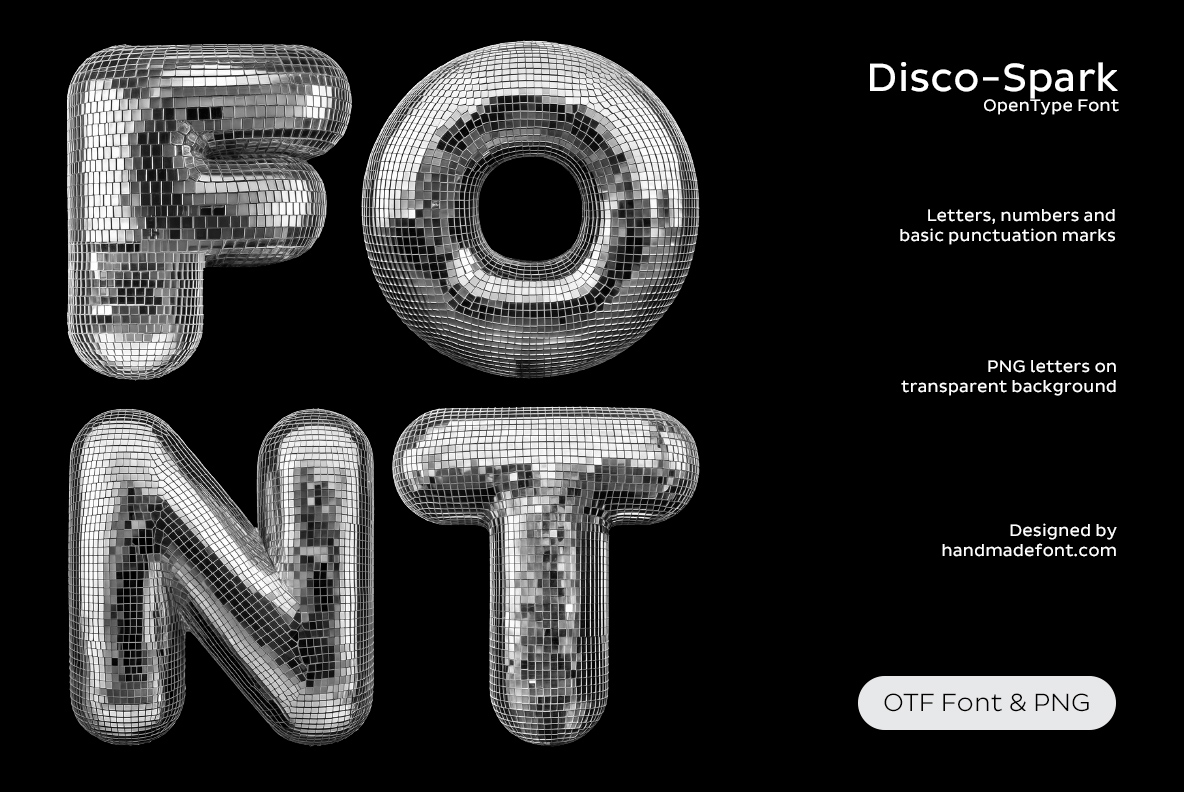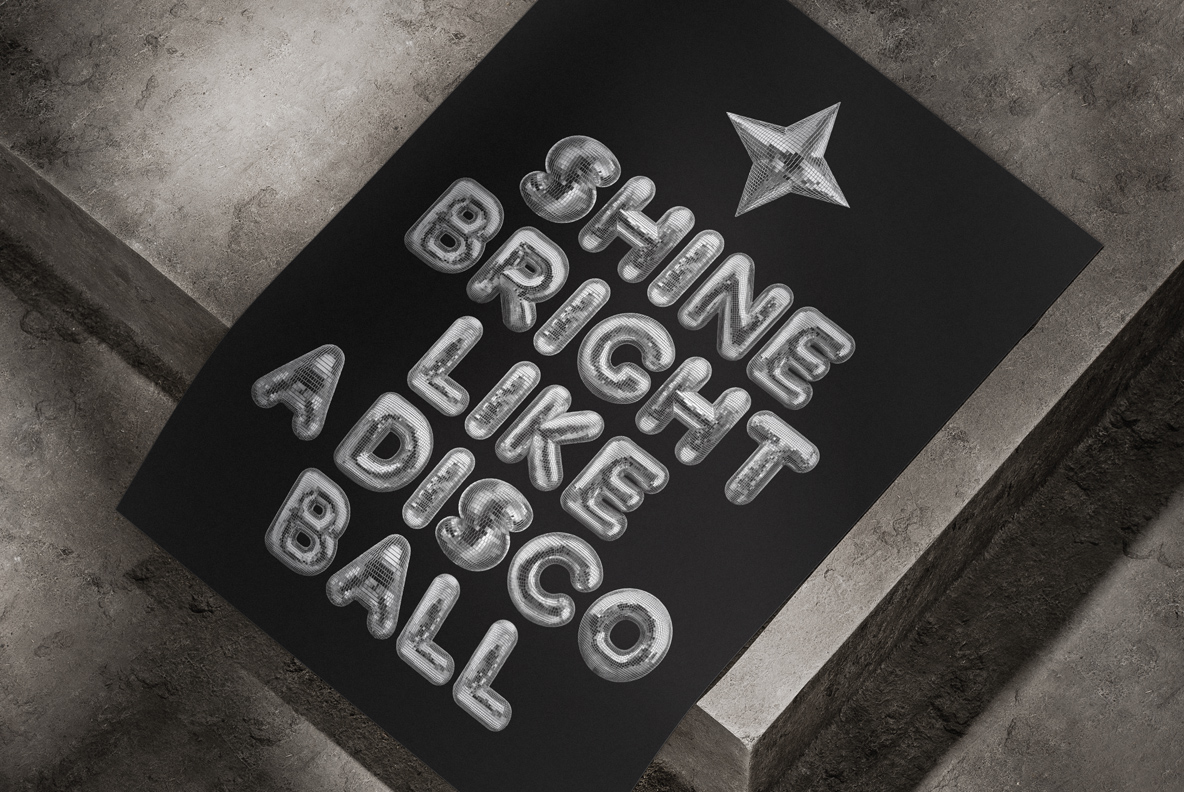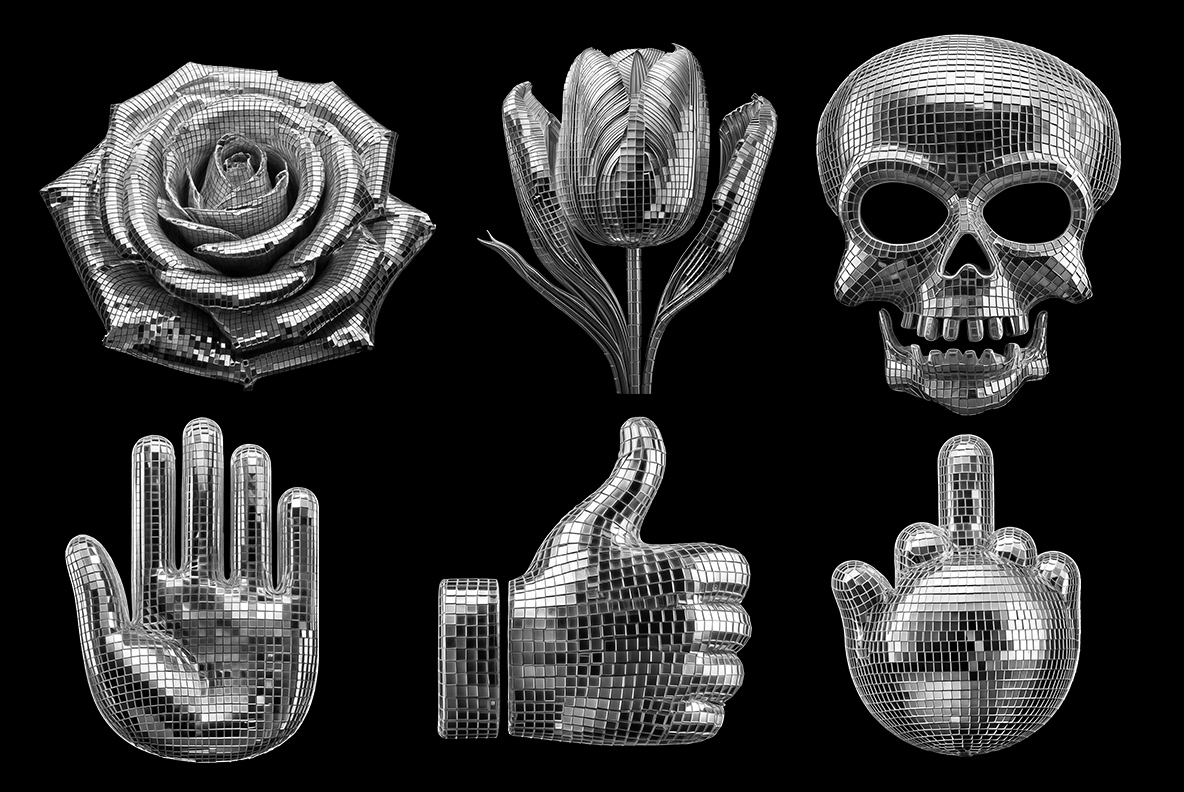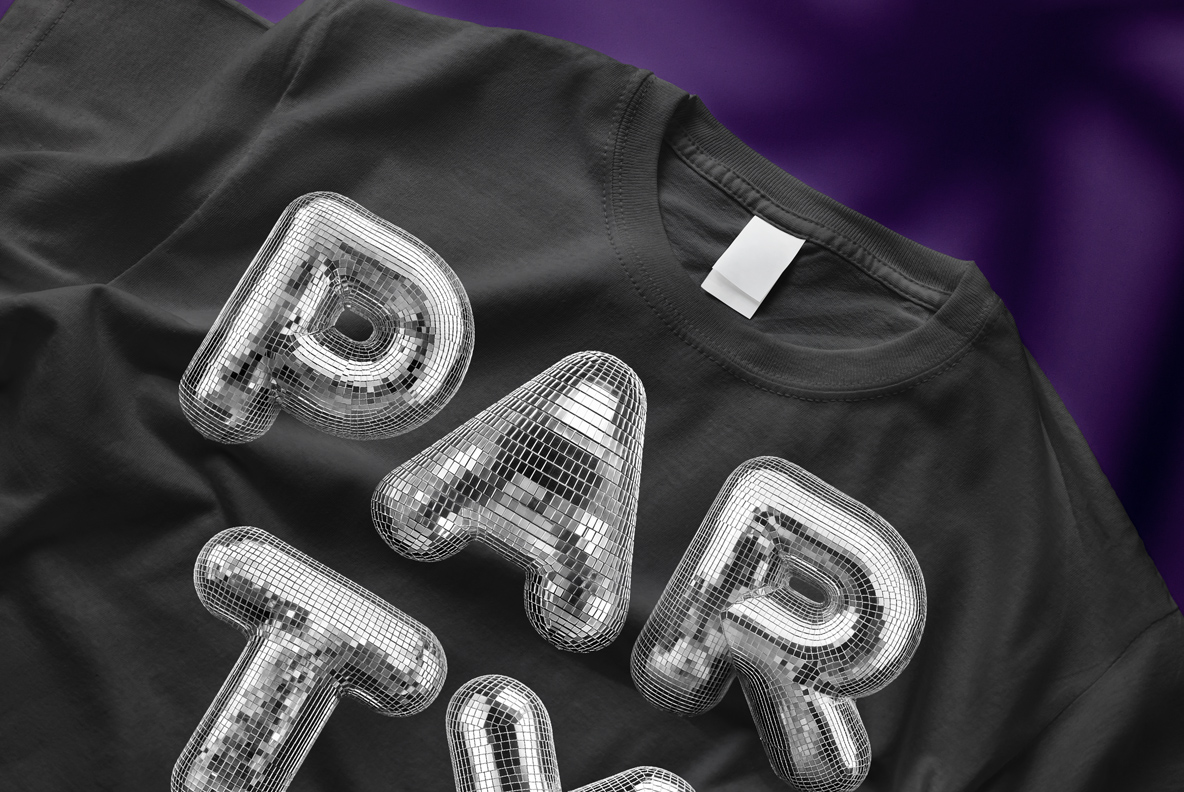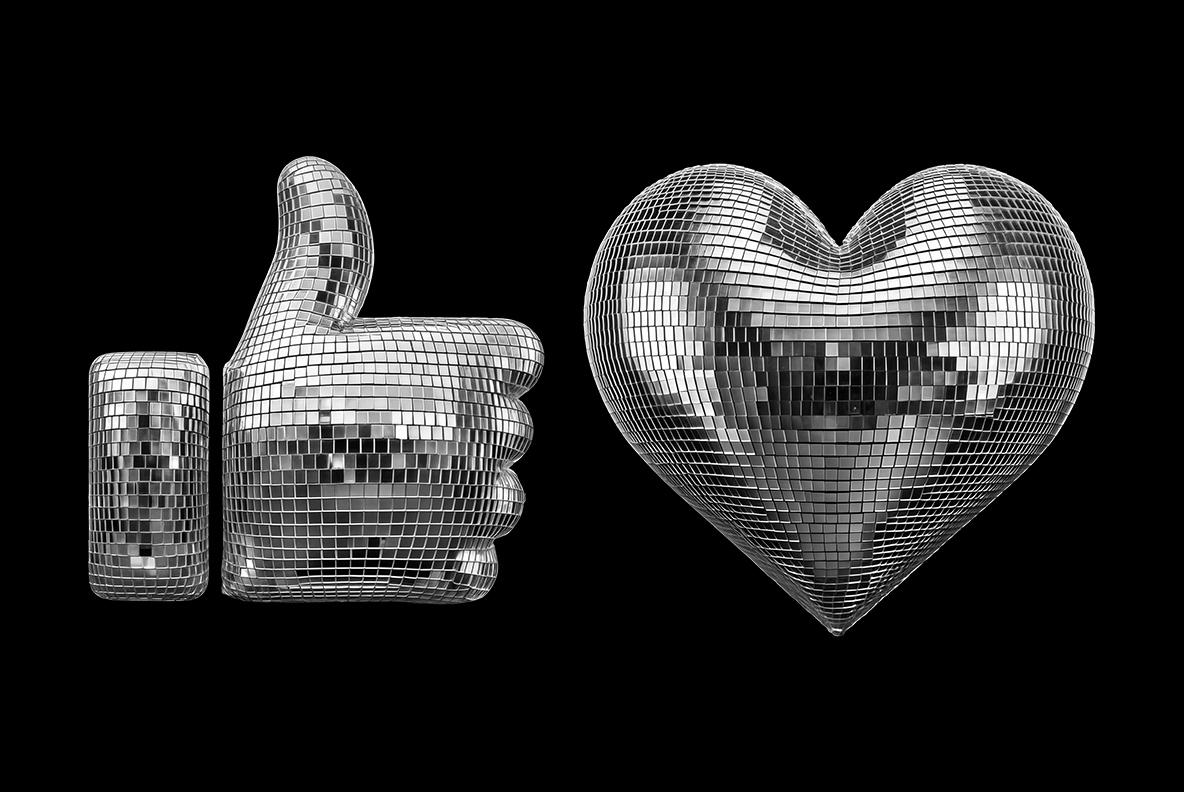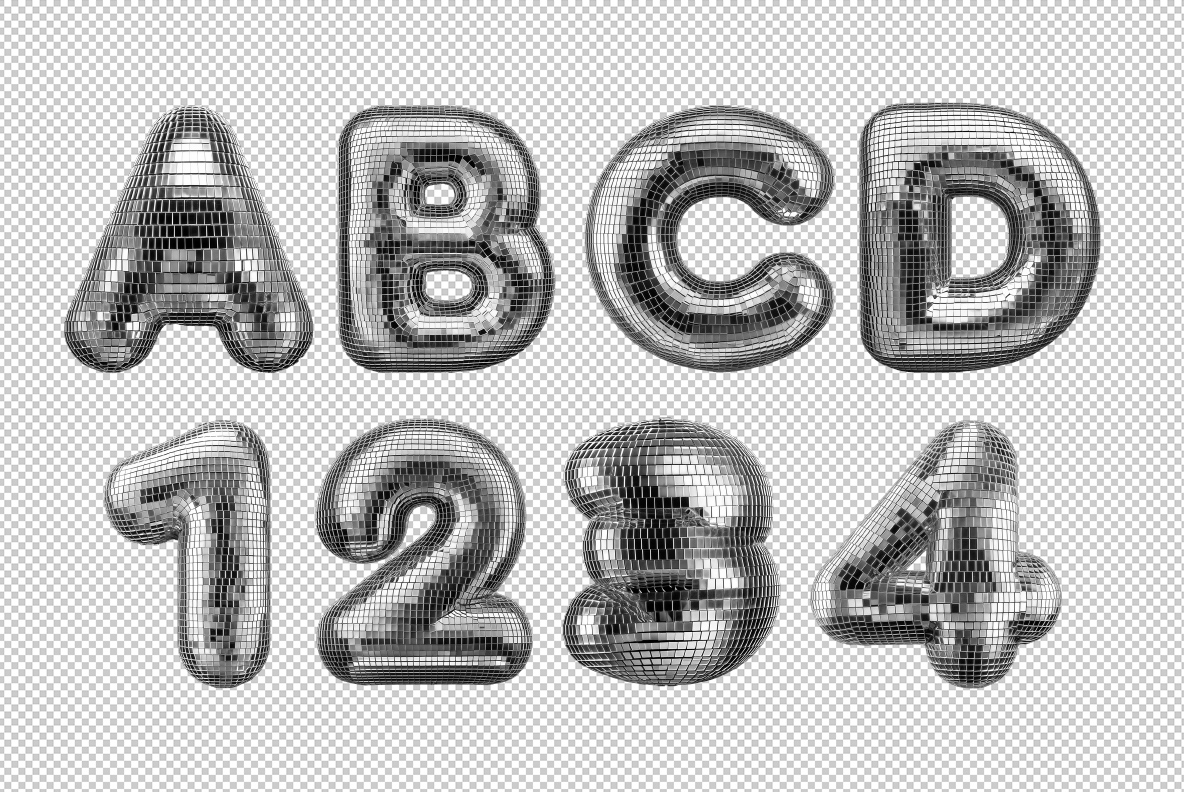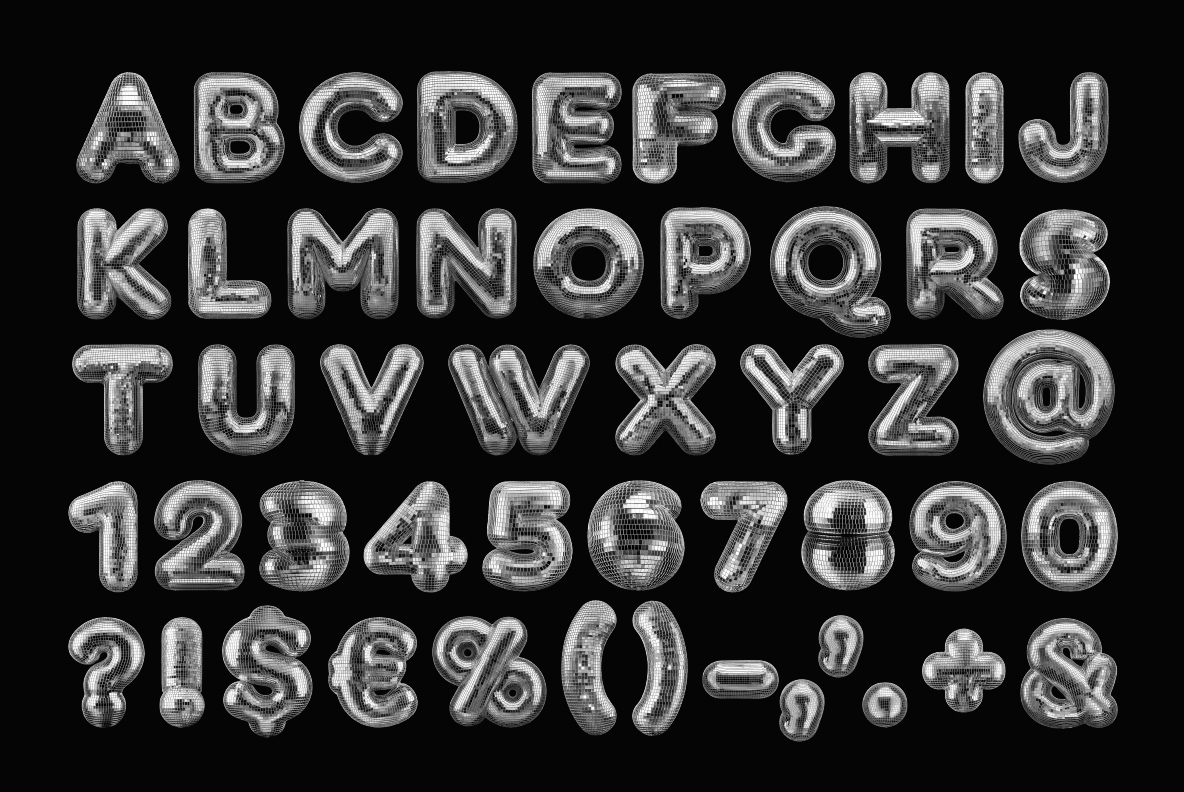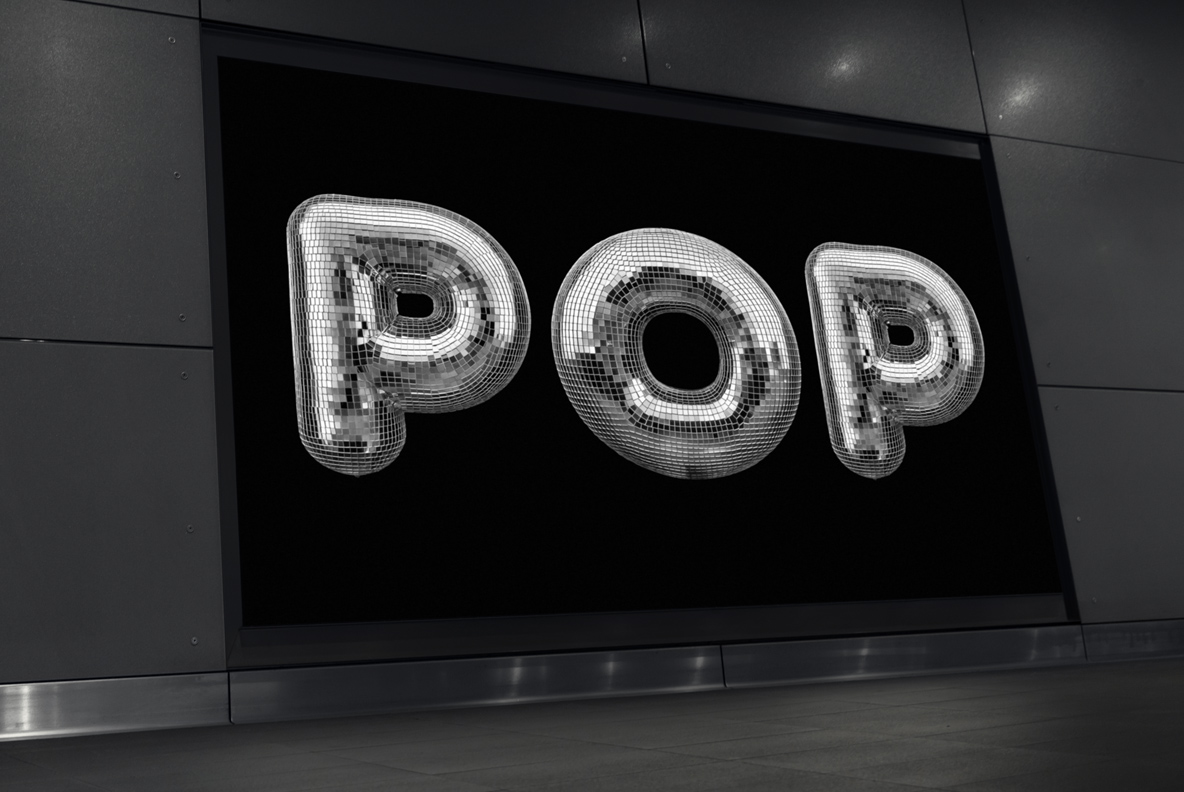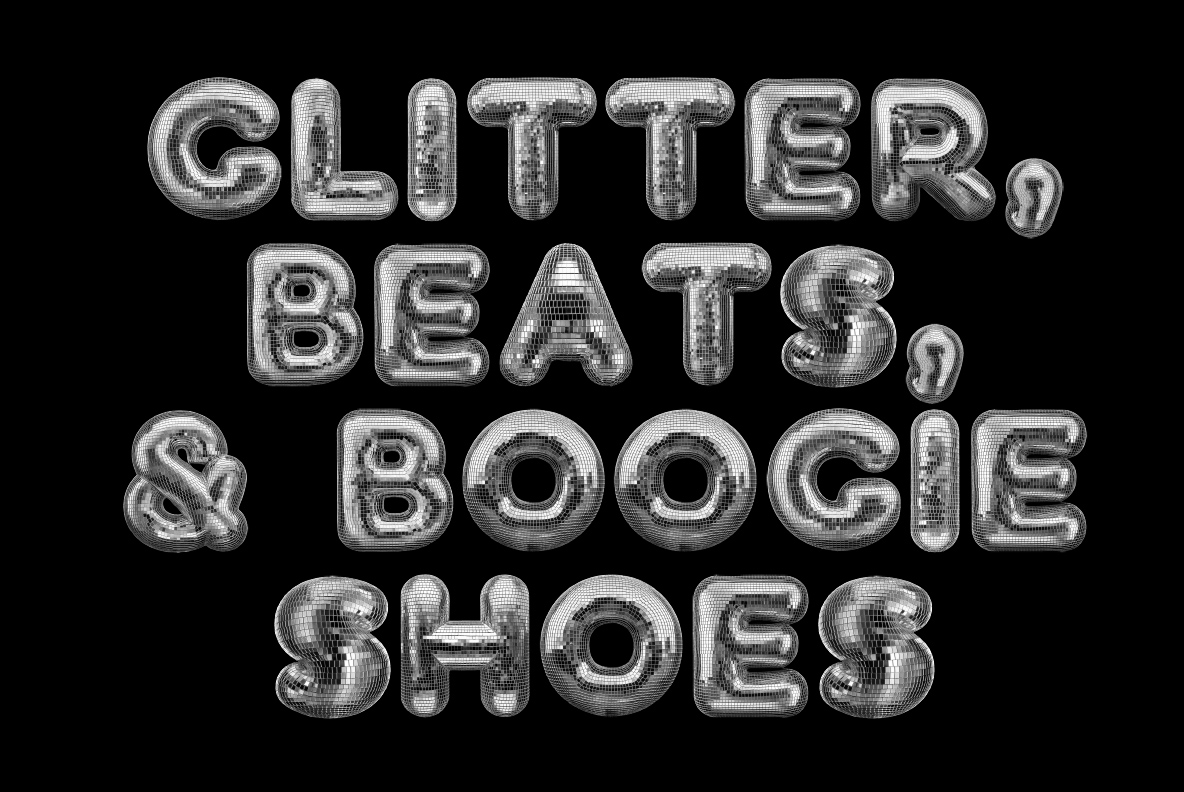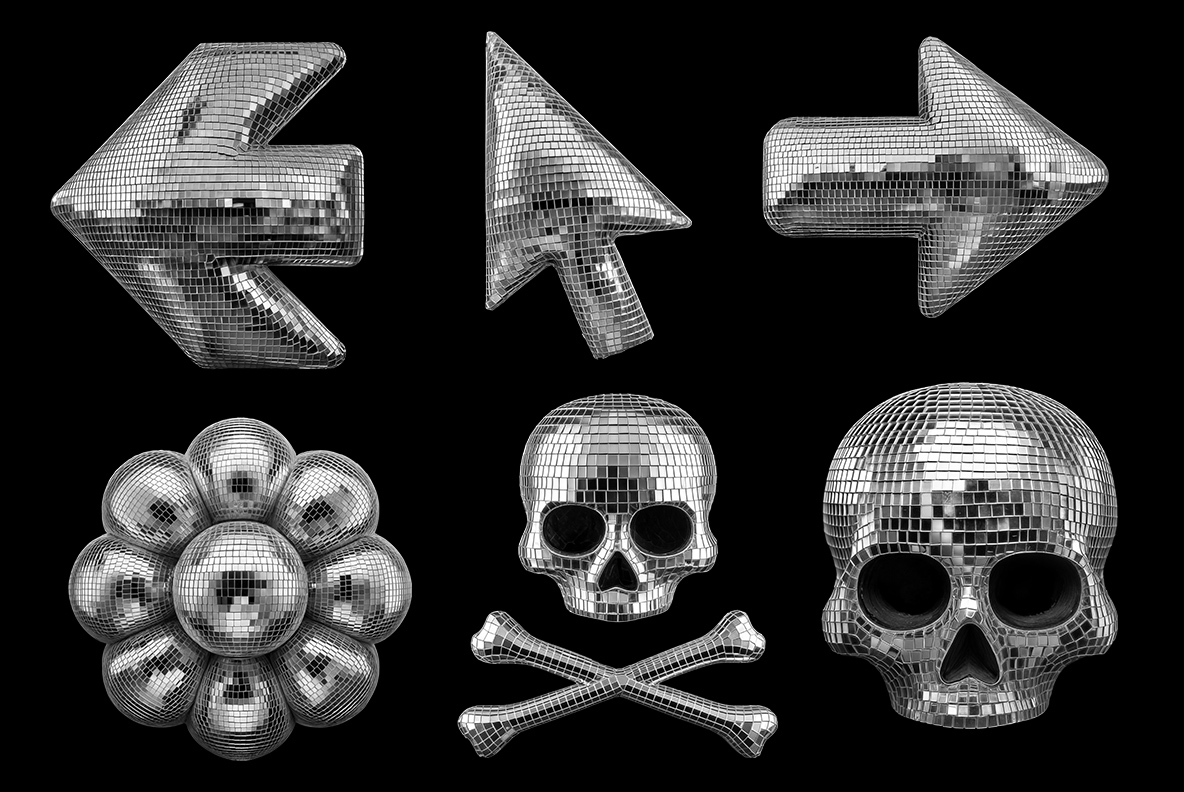
Disco-Spark Font. Mirror-Tiled Balloon Letters
Inflated foil capitals wrapped in thousands of tiny mirror-ball facets, shot in pure silver on black. The Disco-Spark Font keeps its shapes fat and readable while the surface throws light everywhere. Roses, tulips, skulls, hands, eyes, stars and arrows arrive in the same tiled chrome, so a flyer can stay silver from headline to corner.
A Mirror Ball That Learned the Alphabet
Somebody inflated a mirror ball until it turned into letters. Every capital puffs out like foil, and the whole surface then breaks into thousands of tiny silver facets. Light bounces off them in hard little points, so one word carries its own light show. The shapes stay fat and friendly underneath, because the silhouette sits closer to a party balloon than a display serif. Even so, short words stay perfectly legible when the sparkle gets loud. Above all, the effect reads as a real object rather than a texture pasted on.
Disco-Spark Font Keeps Everything in Silver
Colour never enters the picture here, yet that restraint is exactly the point. Silver, charcoal and white do all the work, so the type lands on a black backdrop without a fight. Besides the alphabet you get figures, punctuation and a generous pile of extras. Roses, tulips, skulls, hands, eyes, stars and arrows all arrive in the same tiled chrome. Since they share one finish, a whole layout holds together with no extra retouching.
Animated mirror-tiled letters of the Disco-Spark Font spelling the word disco
Rooms This Typeface Was Built For
Club flyers want this one, obviously. It also handles record sleeves, birthday invitations, drag posters, New Year menus and any headline that needs to shine rather than shout. Because the letters read as solid objects, they photograph beautifully over dark venue shots. For the same tiling in full rainbow chrome, look at Disco Pop Font instead. Meanwhile the plain silver here suits black and white printing far better.
Title card for the Disco-Spark Font with the word font in mirrored balloon letters
Alphabet and numerals of the Disco-Spark Font glinting on a black background
Record sleeve titled disco souls set in the Disco-Spark Font
Dark poster with a short party line set in the Disco-Spark Font
Black t-shirt printed with the word party in the Disco-Spark Font
Large dark screen showing the word pop set in the Disco-Spark Font
Four lines of party wording set in the Disco-Spark Font on black
Framed poster with a mirrored letter S from the Disco-Spark Font
Silver arrows, a skull and crossbones and a tiled ball icon from the Disco-Spark Font
Hand, eye, clover and star shapes in mirror tiles from the Disco-Spark Font
Rose, tulip, skull and hand icons in mirrored silver from the Disco-Spark Font
Thumbs up and heart shapes tiled like a mirror ball from the Disco-Spark Font
At sign and ampersand of the Disco-Spark Font in tiled silver
Letters A to D and figures one to four of the Disco-Spark Font on a transparent background